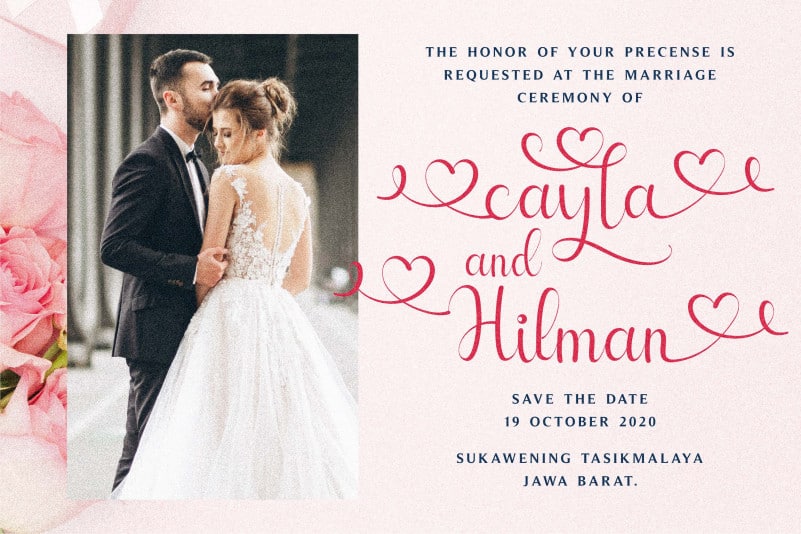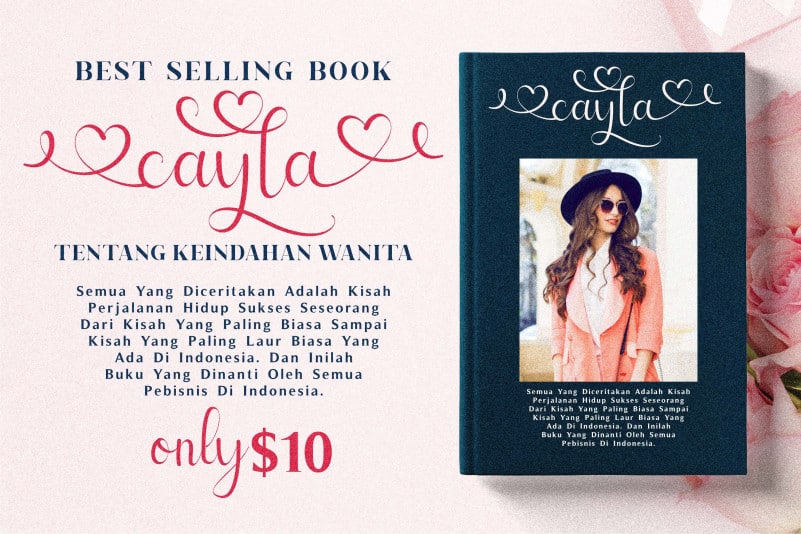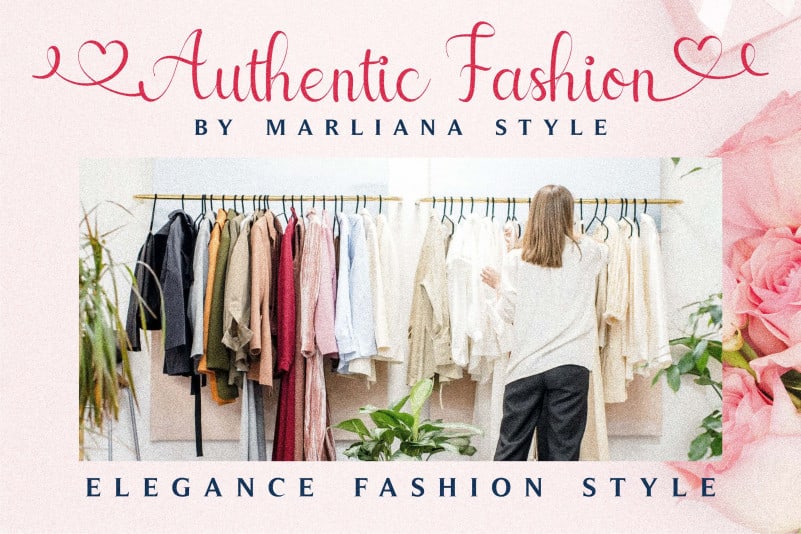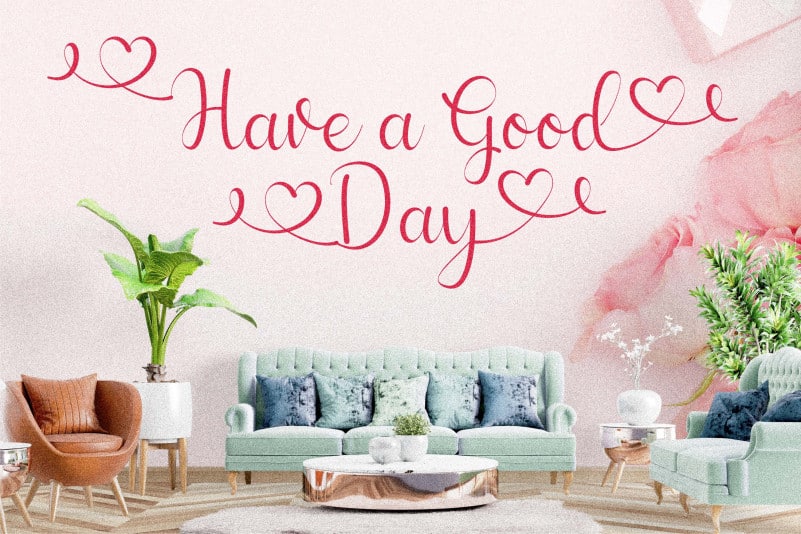
Cayla Calligraphy Font is a delicate and lovely handwritten font. Whether you’re looking for fonts for Instagram or calligraphy scripts for DIY projects, this font will turn any creative idea into a true piece of art!